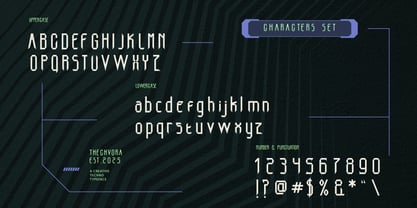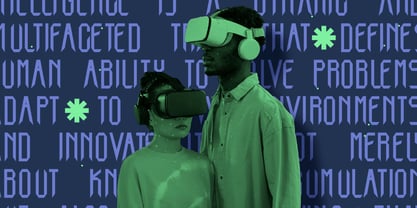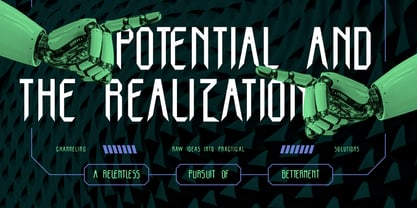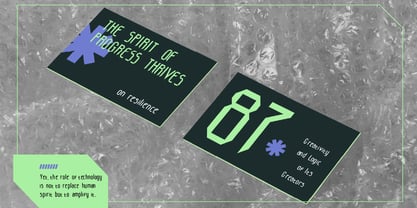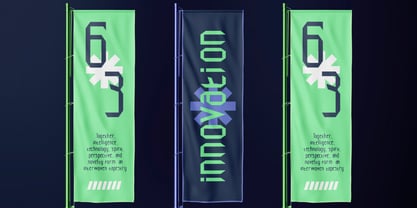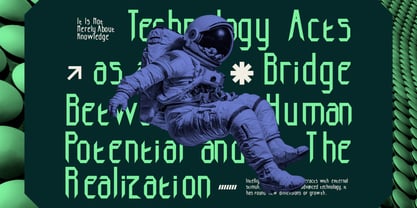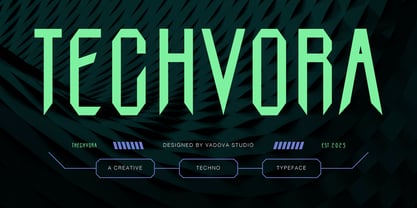
Techvora
Techvora is a boldly futuristic sans‑serif typeface engineered for high‑impact design projects that demand a techno‑industrial edge. With sharply angled strokes, condensed letterforms, and strong vertical emphasis, Techvora delivers a distinct, mechanical aesthetic that immediately conveys modernity, digital strength, and a sense of innovative energy. The font includes a full uppercase alphabet, numerals, punctuation, and essential symbols providing full basic support for standard Western languages. Angular terminals and pointed glyph endings give Techvora a sharp, aggressive nuance, while its balanced line weight and consistent stroke construction ensure legibility even at smaller sizes. Whether used for logos, headlines, posters, album art, or tech‑oriented branding, Techvora brings a gritty futuristic vibe with ready‑made attitude.